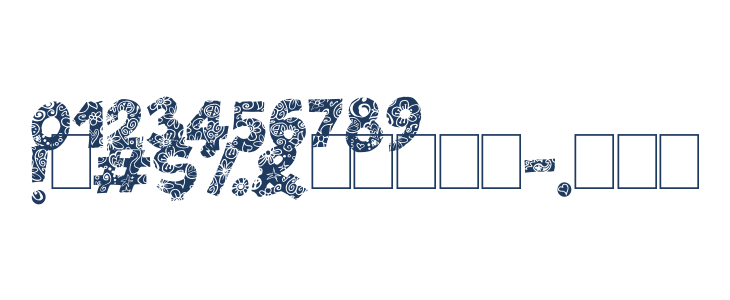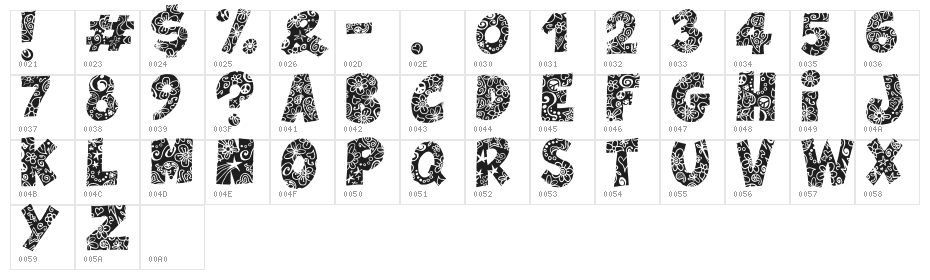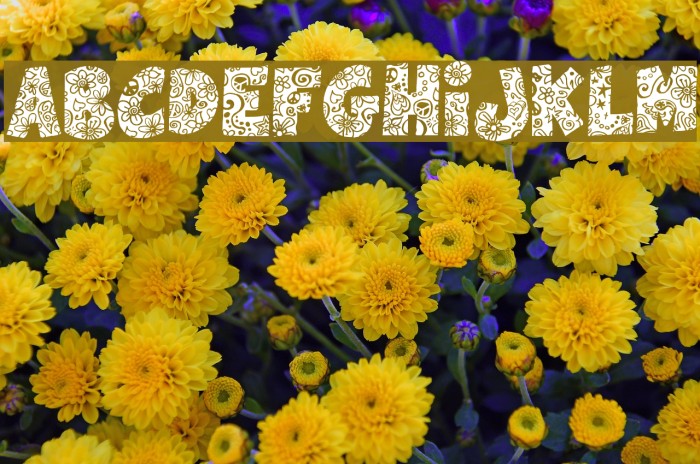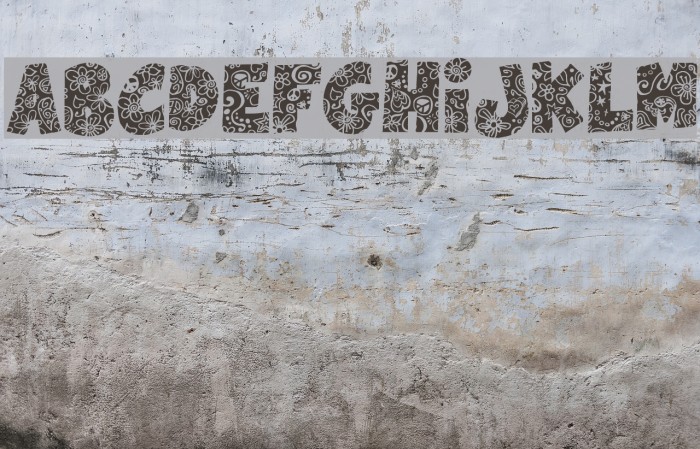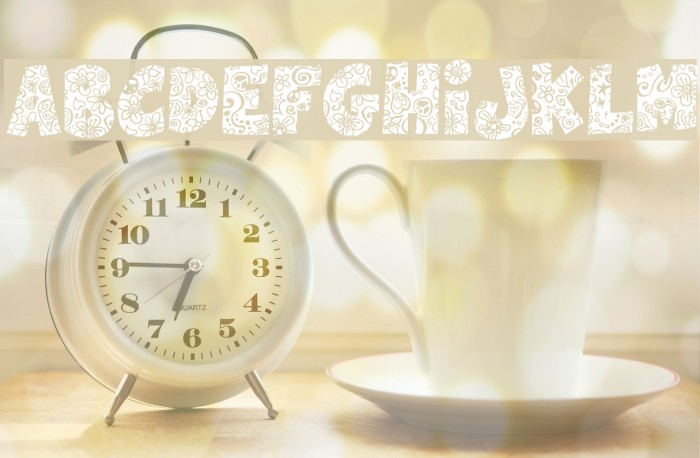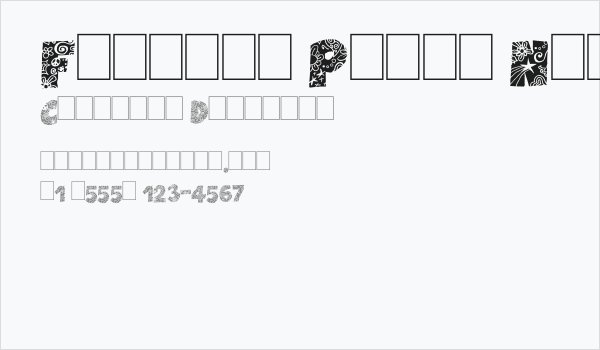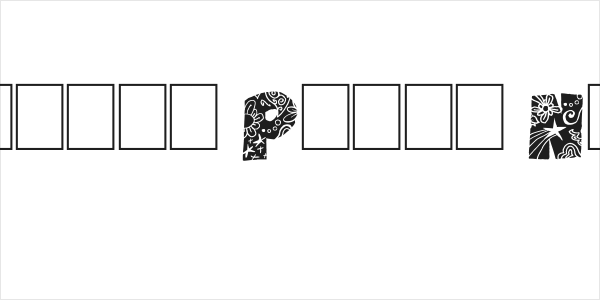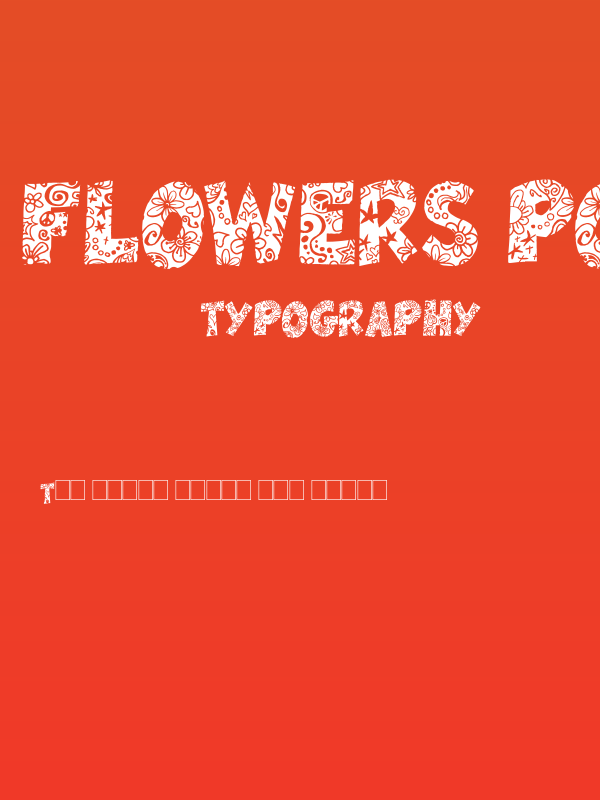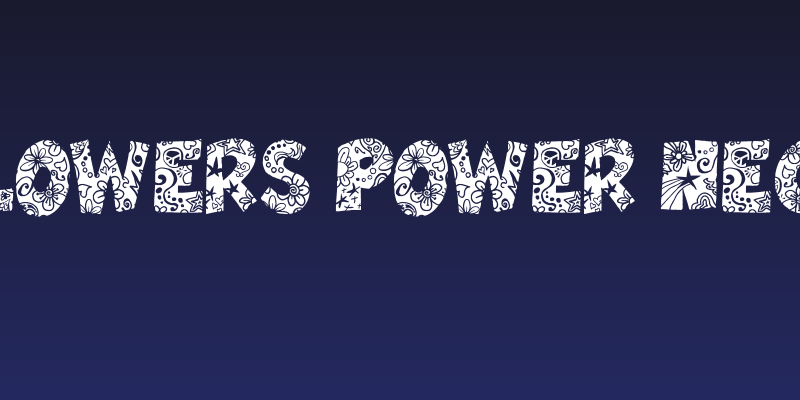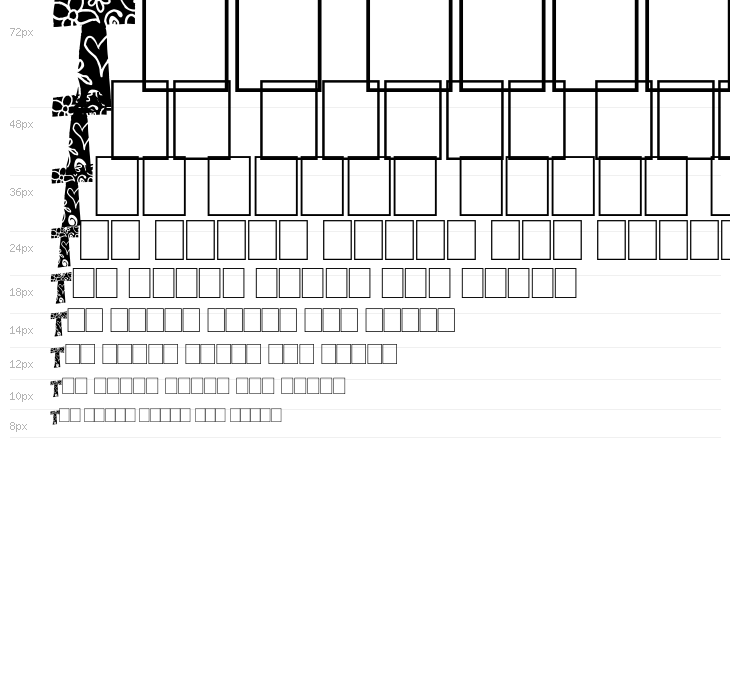
Flowers Power Nega Font
Flowers Power Nega Description
This font features a bold and decorative style with intricate floral patterns embedded within each character. The letters are filled with detailed flower motifs, creating a vibrant and eye-catching appearance. The design is playful and artistic, making it ideal for projects that require a touch of creativity and uniqueness. The uppercase and lowercase letters, along with numbers and special characters, maintain a consistent theme of floral embellishments, providing a cohesive look across the entire character set.
| Proposed Projects | Ideal for greeting cards, posters, event invitations, and any design needing a floral or nature-inspired theme. |